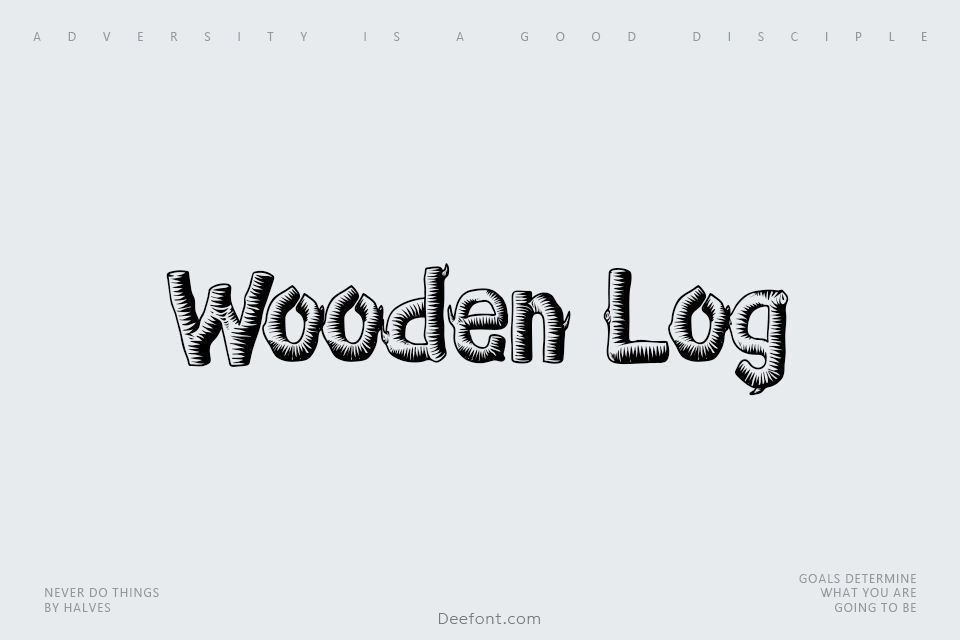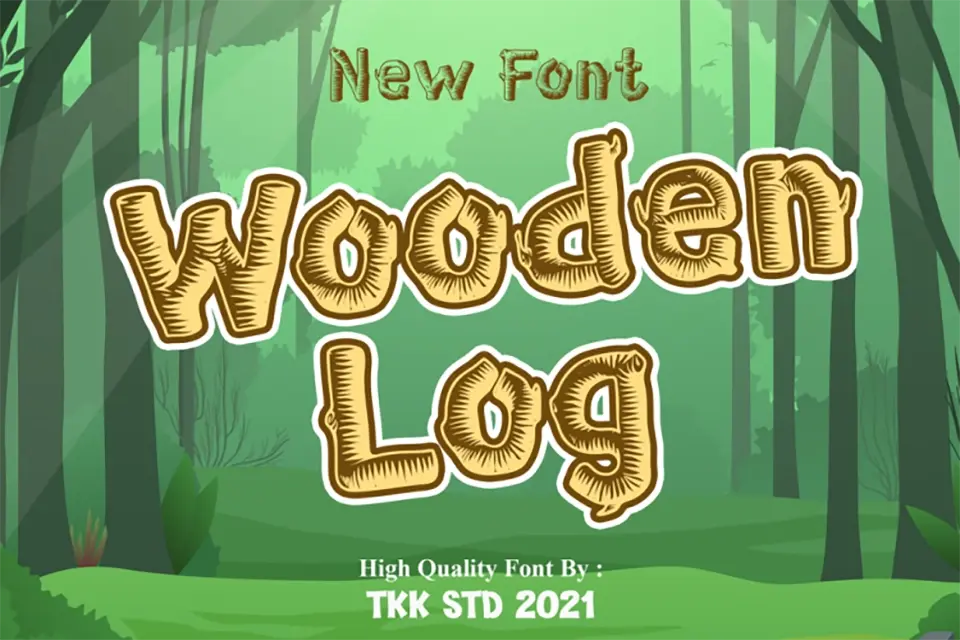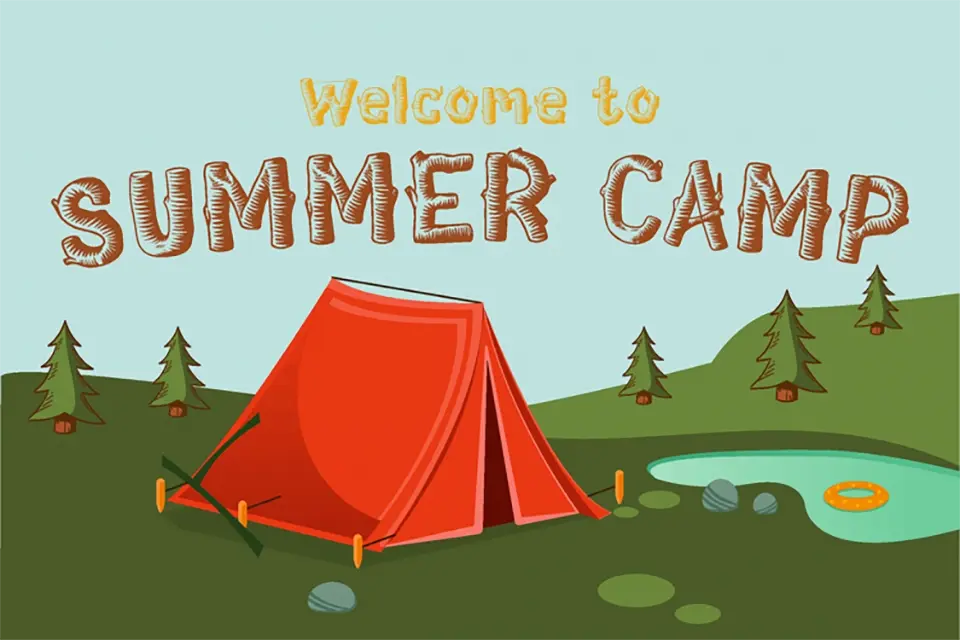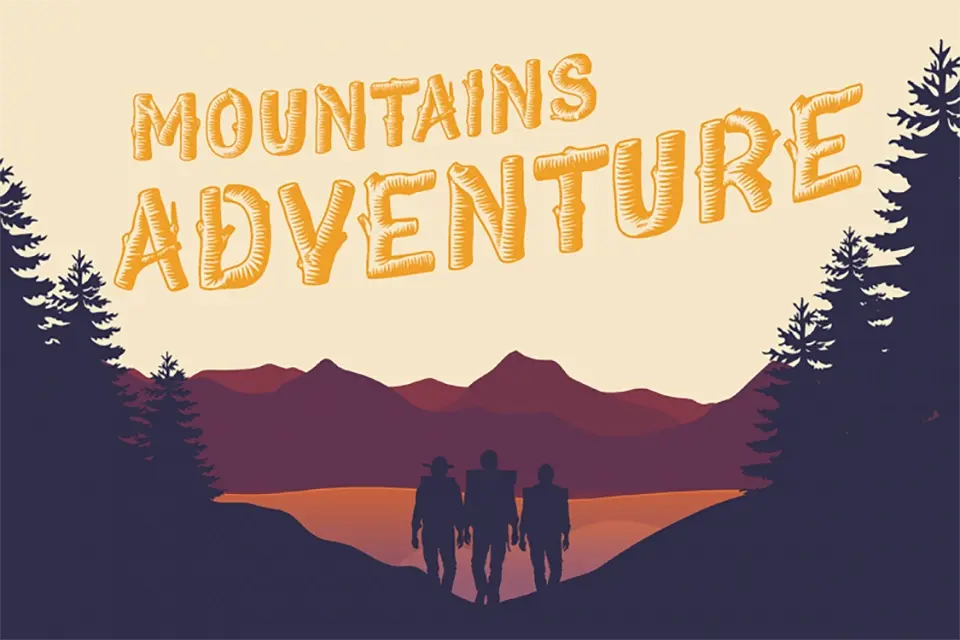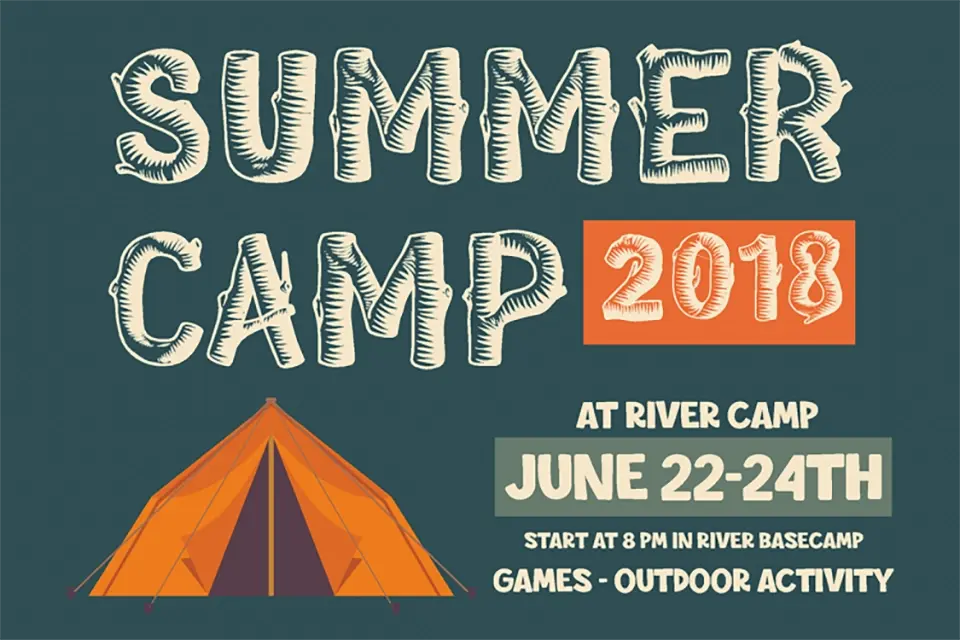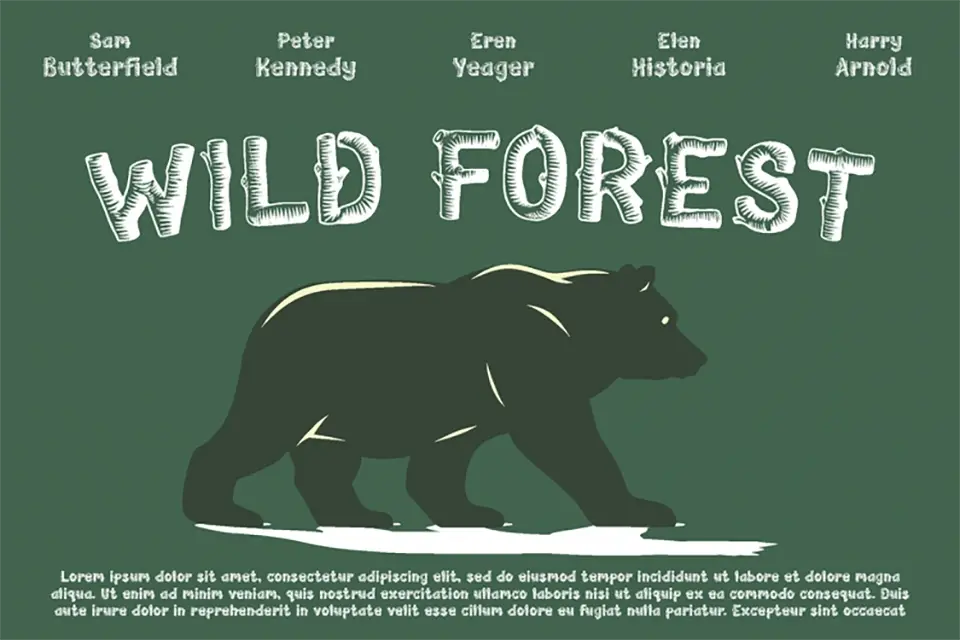
Wooden Log Font
Wooden Log is a bold decorative display font featuring intricate wood-grain textures and carved details that capture a rustic, organic aesthetic. Designed by Tokokoo Studio, this typeface showcases chunky, rounded characters with three-dimensional shading perfect for nature-inspired designs. The font’s distinctive wood-like appearance makes it ideal for outdoor branding, adventure-themed projects, posters, and creative displays requiring a handcrafted feel. With excellent readability and strong visual impact, Wooden Log brings warmth and authenticity to any design project seeking an earthy, playful yet sturdy visual identity.